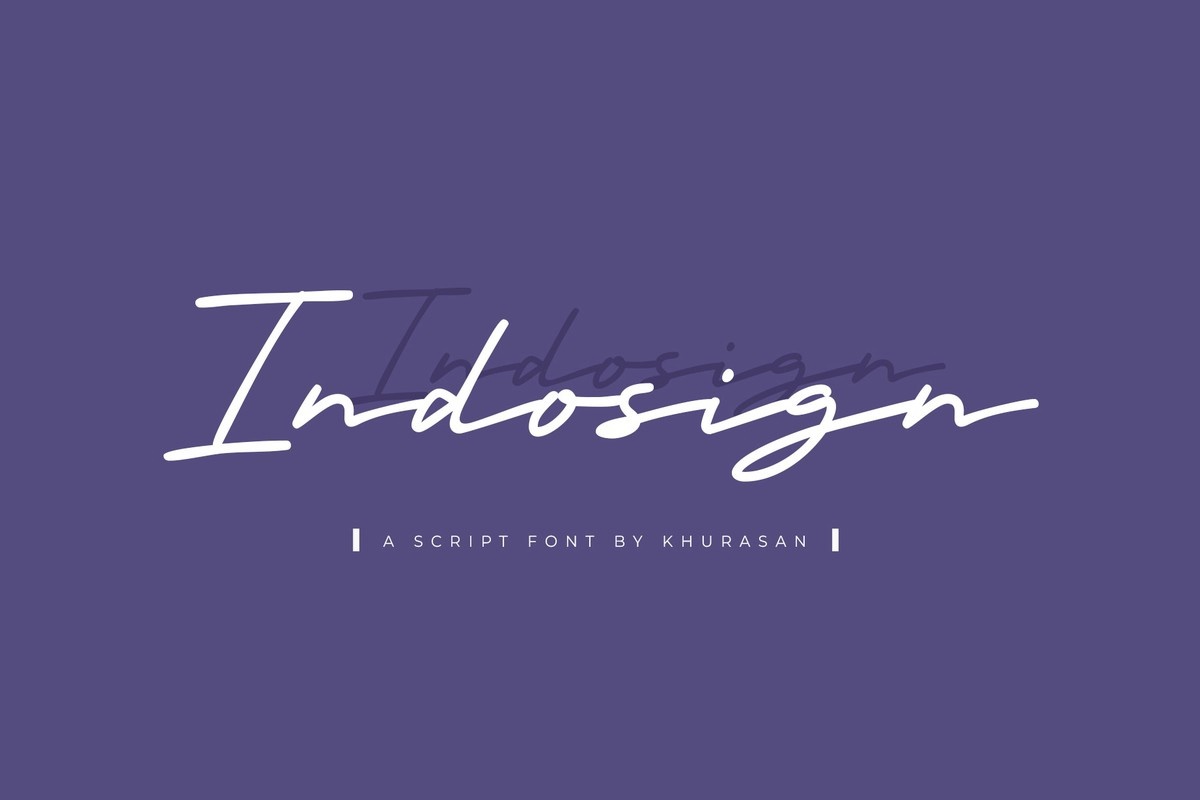
Indosign Font
Indosign Font is perfect for tropical resort branding, Southeast Asian cultural events, travel agency materials, exotic destination marketing, Indonesian restaurant signage, tropical fashion brands, cultural festival posters, island tourism campaigns, spice company packaging, and authentic Asian hospitality branding.
Indosign Font is exciting because it captures the vibrant spirit and rich cultural heritage of Indonesia and Southeast Asia, creating a typeface that embodies tropical warmth, cultural diversity, and the exotic allure of island paradise. This font brings cultural authenticity and tropical sophistication to any project, making it ideal for brands that want to convey adventure, cultural richness, and the enchanting beauty of Southeast Asian destinations. Its distinctive character and tropical appeal create an atmosphere of exotic elegance that resonates with audiences seeking authentic cultural experiences.
Indosign Font family includes light, regular, medium, bold, and black weights, each available in roman and italic styles with tropical ornaments and Southeast Asian decorative elements, providing designers with comprehensive tools for creating culturally authentic typography and exotic brand experiences.
This captivating tropical typeface combines traditional Indonesian design influences with contemporary international aesthetics, making Indosign Font Free Download an outstanding choice for projects celebrating Southeast Asian culture and tropical destinations. The font's beautifully crafted letterforms feature tropical proportions and cultural styling that reflect the artistic heritage and natural beauty of the Indonesian archipelago.
Whether you're designing tropical resort identity, cultural tourism materials, or authentic Asian restaurant branding, Indosign Font delivers unmatched tropical authenticity and cultural appeal. The font excels in both intimate cultural applications and large-scale tourism environments where Southeast Asian heritage and tropical paradise create unforgettable experiences.
Tourism professionals choose Indosign Font for its ability to instantly communicate tropical paradise and cultural authenticity while creating emotional connections with travelers seeking genuine Southeast Asian experiences. The font's exotic character makes it particularly effective for resort destinations, cultural attractions, and authentic Indonesian businesses.
Each character reflects the artistic richness of Indonesian culture, featuring tropical curves and cultural details that create typography as vibrant and beautiful as Balinese temples, tropical sunsets, and traditional Indonesian batik artistry.